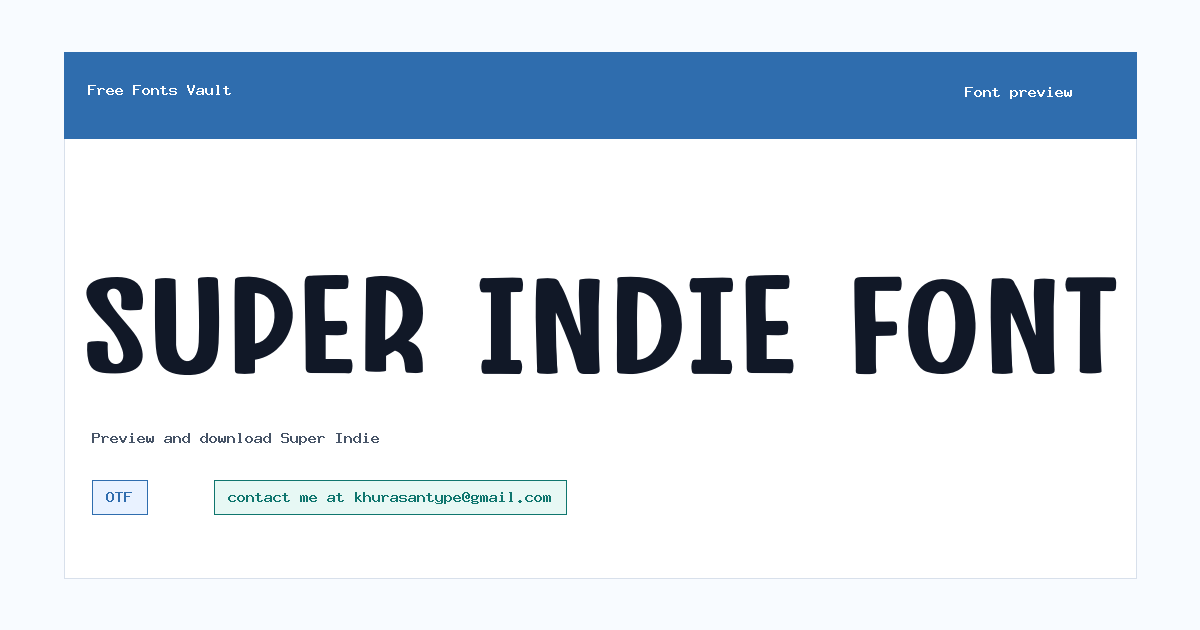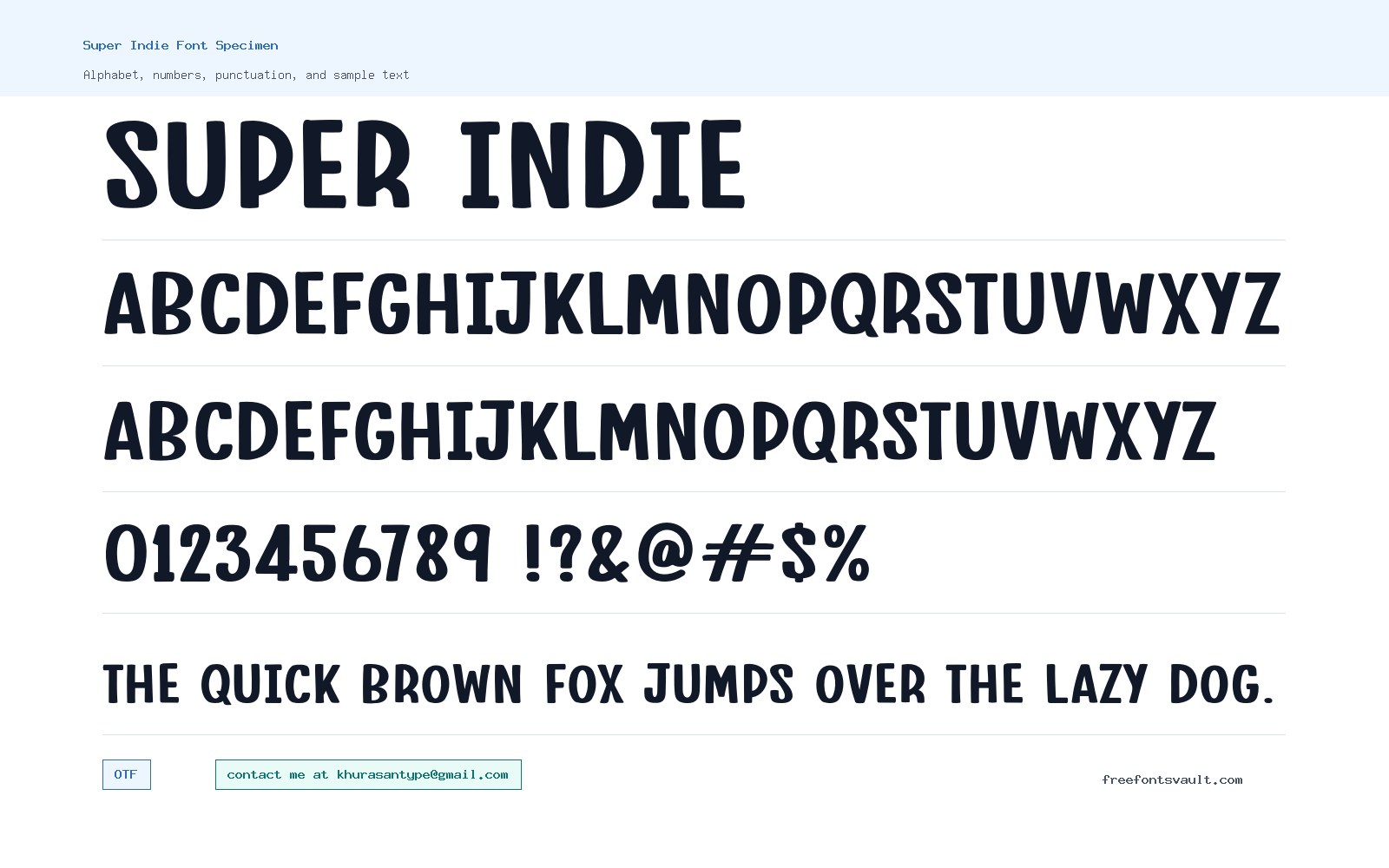
Super Indie
- Designer Khurasan
- Foundry Khurasan
Super Indie font.
Super Indie is a playful display font with a hand-drawn, marker-like feel. It works best when you need short words to look casual, bold, and full of personality.
About Super Indie
Super Indie was created by Khurasan and is offered here as an OpenType font file. Fontesk describes it as a hand-drawn brush font made with real marker pens, while DaFont places it in the Fancy > Cartoon category. That gives it a loose, handmade look rather than a clean geometric style. Use it for display text where the uneven shape is part of the charm.
This font is a better fit for short, visible text than for long reading. Try it in the preview with brand names, poster headlines, book-cover titles, social graphics, stickers, packaging labels, and playful logo ideas. It can carry a fun headline on its own, but keep body copy in a simpler sans serif or serif so the design stays easy to read. Test uppercase, lowercase, spacing, and punctuation before final artwork, especially if the word is small or tightly placed.
- Hand-drawn brush style with an informal marker look
- Playful display character suited to short headings and title work
- Useful for casual branding, packaging, posters, banners, covers, and social graphics
- Posters and event graphics
- Playful logos and wordmarks
- Magazine or book-cover titles
- Product packaging and labels
- Banners, stickers, and social media artwork
- Short handwritten-style quotes
Super Indie is credited to Khurasan. Fontesk and DaFont also associate the font with Syafrizal a.k.a. Khurasan.
Use Super Indie for short display text where a loose handmade tone is helpful. Pair it with a plain supporting font, avoid long paragraphs, and check spacing in the live preview before downloading for a final layout.
What kind of font is Super Indie?
Super Indie is a hand-drawn display font with a brush or marker-style look. It is meant for bold, casual text rather than long reading.
Who designed Super Indie?
The font is credited to Khurasan. Fontesk and DaFont also name Syafrizal a.k.a. Khurasan in connection with the font.
What is Super Indie best used for?
It is best for posters, playful logos, packaging, book covers, banners, stickers, social graphics, and short titles that need a casual handmade style.
Is Super Indie good for body text?
No. It is better for short headings and display text. For paragraphs, pair it with a clean, readable font.